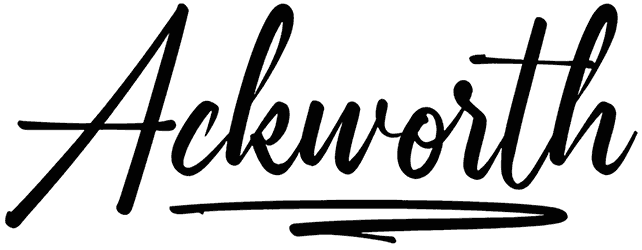
Ackworth Font
Ackworth is a marker font that is purely perfect for any kind of graphic design, including business cards, branding, logos, and flyers that require a handwritten touch. Although it doesn’t support numbers and punctuation, it has a cursive design, thus, this typeface adds a sense of personalization, softness, precision, and drama to your content.